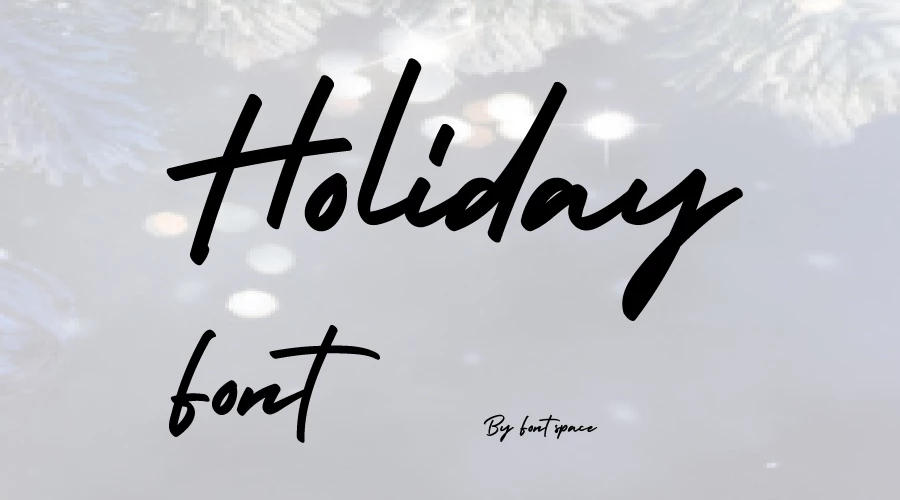
Thank you for visiting Holiday Font! A script and handwritten font that has been beautifully hand-painted. The typeface is fabulously elegant and eccentric, with a dash of unfettered fun thrown in for good measure. This font experiments with movement, shape, and angle to achieve a truly handwritten, unique feel. It’s PUA encoded, so you can easily access all of the glyphs and swashes! All included a variable baseline, silky lines, beautiful glyphs, and attractive alternates.
Holiday Font supports Afrikaans, Albanian, Catalan, Danish, Dutch, English, Icelandic, Italian, Spanish, Portuguese, German, Swedish, Norwegian, Polish, Indonesian, Zulu, and more. The font is designed and shared by Font Space. Windows, Apple/Mac, Linux, Cricut, Silhouette, and other cutting machines are all compatible with the font. The typeface comes in two different formats: TTF and OTF. The Script and handwritten typeface were created using digital brush pen strokes to give it an intimate view.
The typeface is sure to stand out on everything from greeting cards and invitations to personalized logos and handwritten quotations, and it’s a lovely homemade font for you to have a wonderful holiday season! This handwritten script font is ideal for all of your logos, branding, social media, and artsy DIY projects.